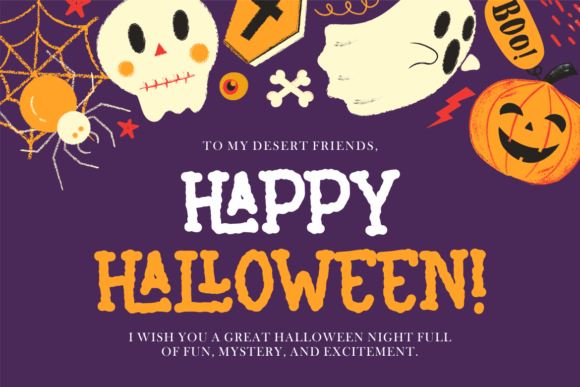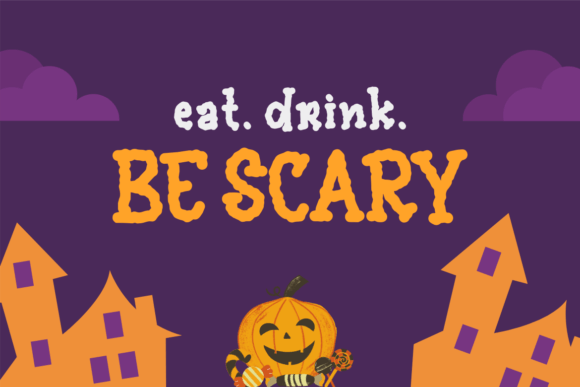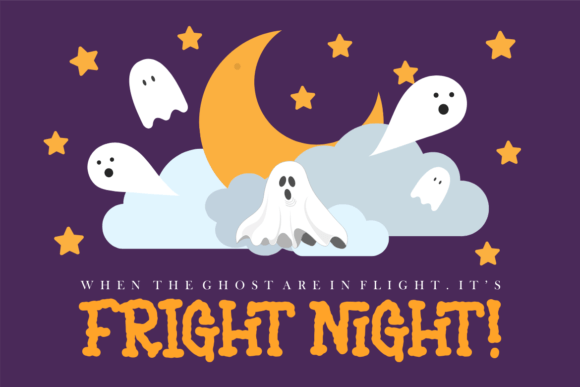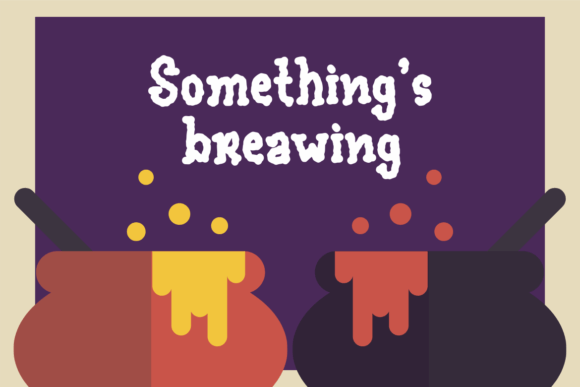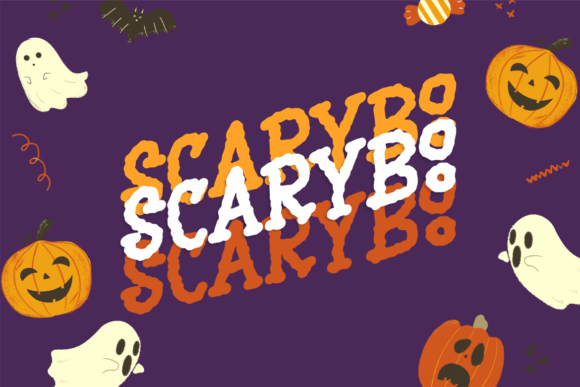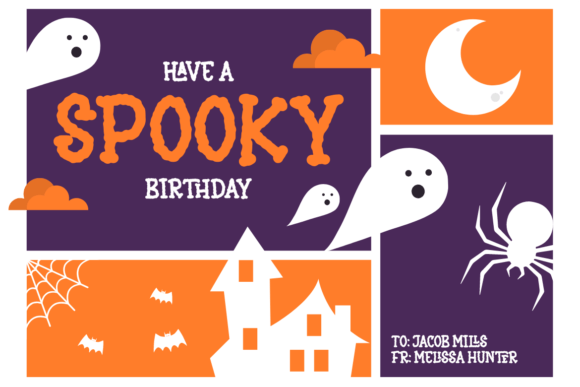
Introduction to Helloboo Font
Have you ever been working on a creative project, pouring your heart and soul into it, only to feel like something is missing that special touch? That’s where the Helloboo Font comes in – a playful, quirky display font that will add a dash of magic to your designs. Whether you’re working on a spooky Halloween theme or just need a fun font to brighten up your day, Helloboo Font is the perfect solution.
Key Features of Helloboo Font
- High-quality, professional font ideal for creative projects and designs
- Transparent background, allowing for seamless integration with any design resource
- Perfect for use in logos, branding, and other design elements
- Includes a range of glyphs and characters for comprehensive use
Honest Review: Helloboo Font
I recently stumbled upon the Helloboo Font while searching for free design resources. As a designer, I’m always on the lookout for high-quality fonts that can elevate my creative projects. The Helloboo Font did not disappoint.
- ✨ The Helloboo Font has a clean and modern design aesthetic that makes it perfect for digital projects.
- ✨ The transparent background option makes it easy to use the font with any design element.
- ✨ The font is highly customizable, allowing you to adjust the size, color, and style to suit your design needs.
- ⚠️ The font is limited to a single style, which may not be suitable for projects that require multiple font styles.
Overall, I’m impressed with the Helloboo Font and would highly recommend it to designers looking for a high-quality, free design resource. While it may have some limitations, the benefits far outweigh the drawbacks.
Getting the Most Out of Helloboo Font
For the best results, use the Helloboo Font with a transparent background to create a clean and modern design. You can also experiment with different font sizes and styles to add visual interest to your project.
The Helloboo Font is a versatile design resource that can be used in a variety of creative projects, including logos, posters, business cards, and more. It’s also perfect for creating social media graphics and other online content.